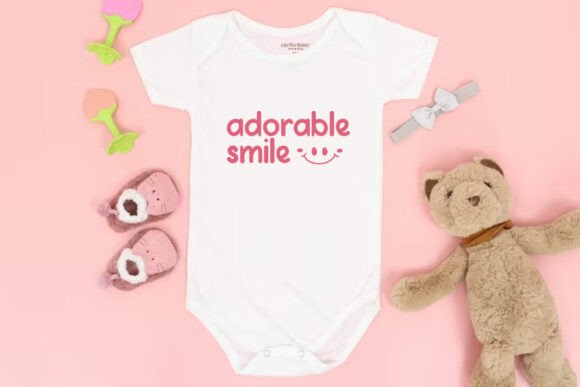
Adorable Smile Font
Adorable Smile Font is a cheerful display font with playful, stylized letters inspired by children’s happiness. It combines softness in its own way that will be an important value for your design, such as all kinds of advertising purposes, blogs, business cards, cover design, flyer, greeting card design, header, headline, label, logos, menu brochure, mockup template, poster, product packaging, quotes, screen print, signs, stationery, sticker, title, watermarks, website, and more.Adorable Smile Font is an original hand-drawn fun typeface. It really gives an adorable shape because each corner is rounded to represent cute letters. This font is ideal for whatever your business background, such as baby fashion, cake shop, event organizer, fashion, film, food and drinks brands, graphic design, homeware, kindergarten, movie, photography, printing, publishing, restaurant, school, storybook writer, summer camp, toy store, etc.